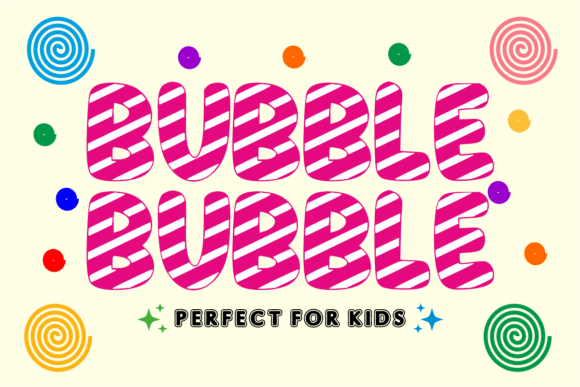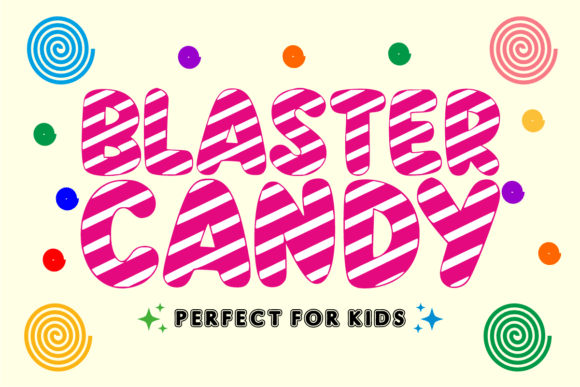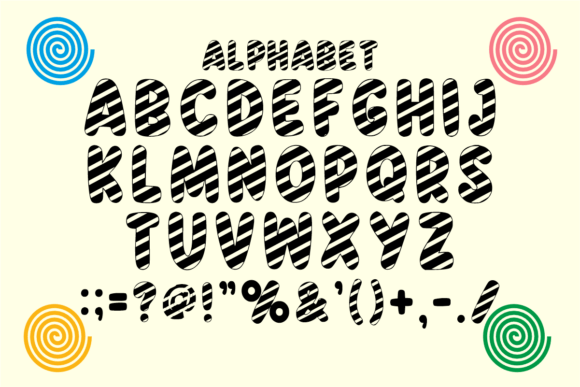
Introduction to Round Candy Font
Who hasn’t dreamed of creating a design that brings a smile to a child’s face? As designers, we often strive to craft projects that spark imagination and joy. For me, that moment came when I stumbled upon the Round Candy Font – a delightful, striped typeface that instantly brightened up my screen.
With its playful, bold letters and vibrant candy stripe pattern, the Round Candy Font is a game-changer for any creative project. Whether you’re designing a birthday banner or creating a logo for a kid-friendly brand, this font is sure to bring a touch of whimsy and charm to your work. And the best part? It’s easy to read, making it perfect for a wide range of applications, from party invitations to school projects.
Key Features of Round Candy Font
- Unique, playful design ideal for creative projects and children’s content
- High-quality font with transparent background for seamless integration into designs
- Perfect for use in digital and print designs, including logos, graphics, and typography-based art
- Easy to customize and style to fit the needs of your creative project
Honest Review: Round Candy Font
I recently came across the Round Candy Font and was excited to give it a try in one of my creative projects. The first thing that caught my eye was the beautiful, playful design that screams “fun” – perfect for a kids’ birthday party invitation or a dessert menu.
Here are some things that work well with the Round Candy Font: ✨
- Its unique and eye-catching design makes it perfect for creative projects that require a playful touch.
- The font is easily customizable and works well with a transparent background, allowing the user to add their own graphics and designs.
However, there are a few limitations to keep in mind: ⚠️
- The font may not be suitable for professional or corporate projects where a more serious tone is required.
- The font is available in a limited number of weights and styles, which may limit its versatility.
Overall, I was impressed with the Round Candy Font and would definitely consider using it again in a creative project. Its unique design and high-quality construction make it a valuable design resource, and the free download option is a major bonus.
Tips for Getting the Most Out of Round Candy Font
To get the most out of Round Candy Font, use it in conjunction with other design elements such as illustrations and graphics. Experiment with different font sizes and colors to create a visually appealing design. You can also use the font with a transparent background to create a sense of depth and dimension.
Round Candy Font is perfect for creative projects such as wedding invitations, birthday cards, and social media graphics. It’s also great for branding and marketing materials such as logos and business cards.